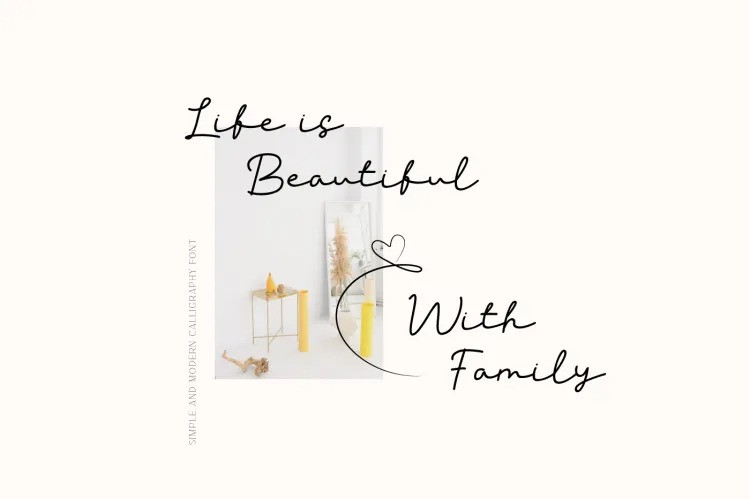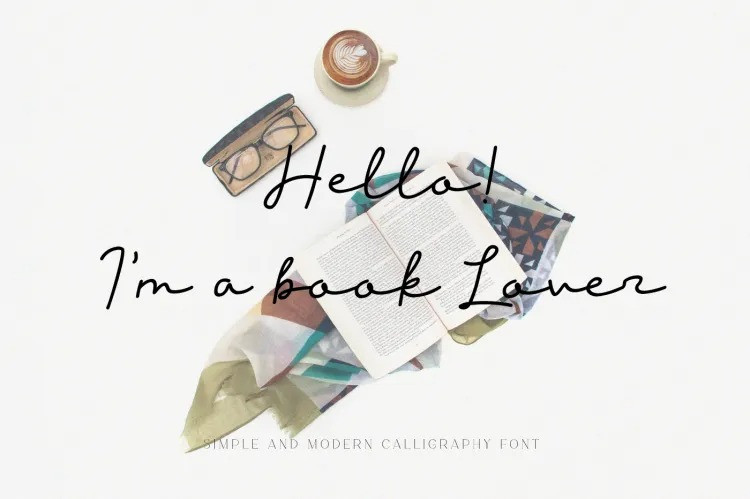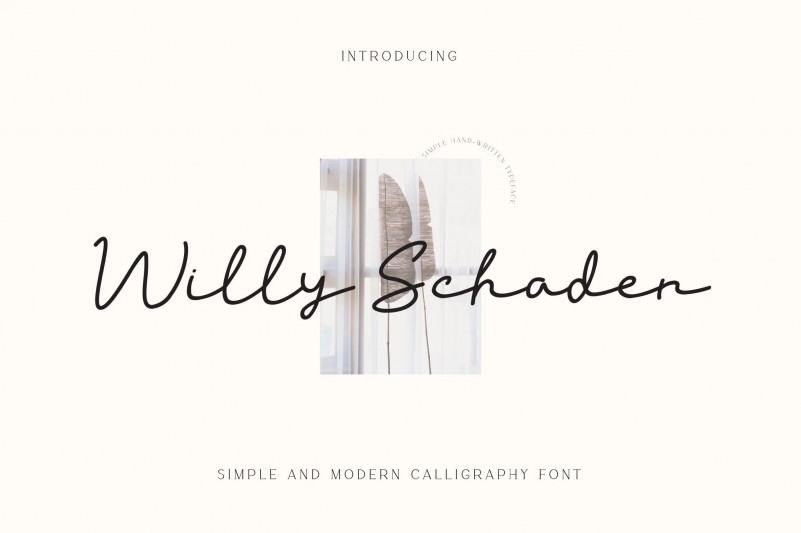
Funimation 2016 Sans Serif Font Free, Perfectly fit for branding, logo, wedding things, greeting cards, fashion, lookbook, marketing promotion, anytime you want to look fancy elegant but still casual.